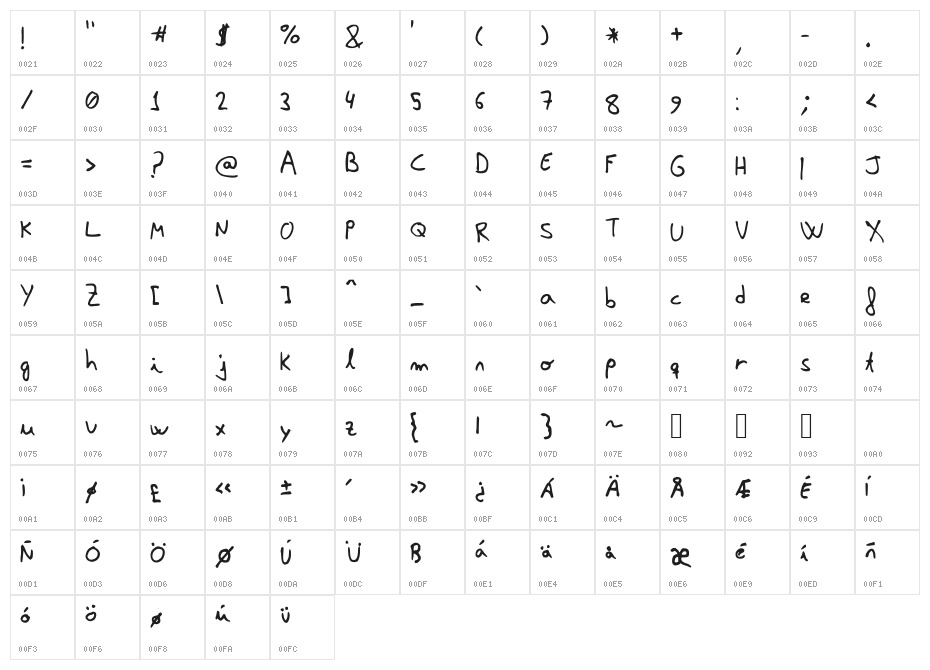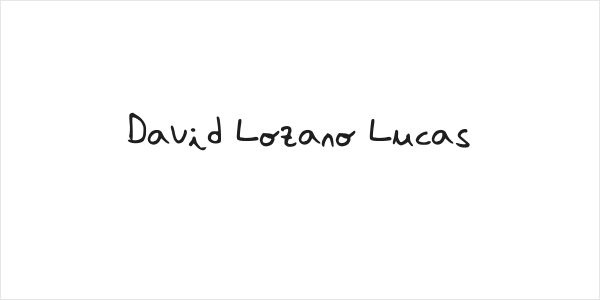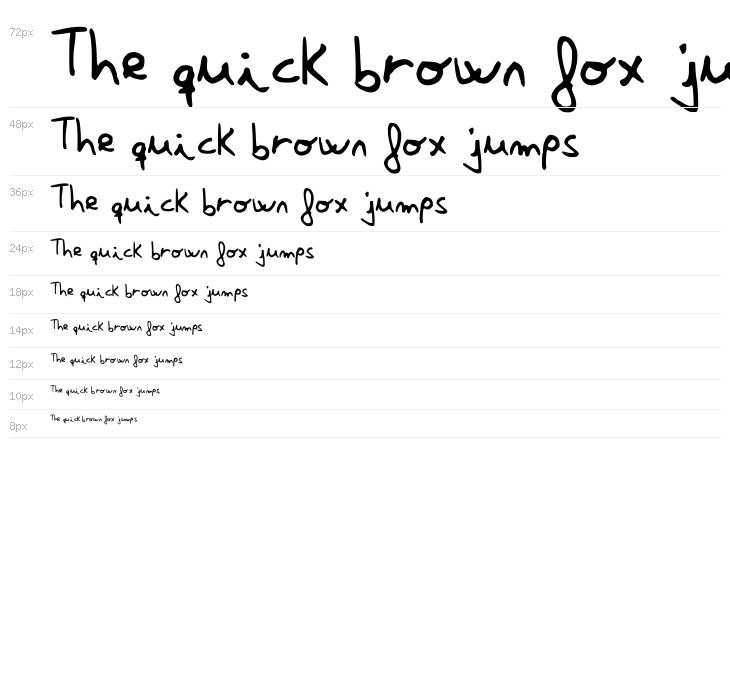
David Lozano Lucas Font
David Lozano Lucas Description
This font exhibits a casual, handwritten style with a playful and informal appearance. The characters are slightly irregular, adding a personal touch that mimics natural handwriting. The strokes are uneven, with varying thickness that gives the font a dynamic and lively feel. The uppercase letters are bold and prominent, while the lowercase letters maintain a consistent flow, enhancing readability. Numbers and special characters follow the same informal style, making the font versatile for creative projects.
| Use Case | Logos, Headlines, Informal text |
| Proposed Projects | Ideal for personal notes, greeting cards, children's books, and informal branding. |